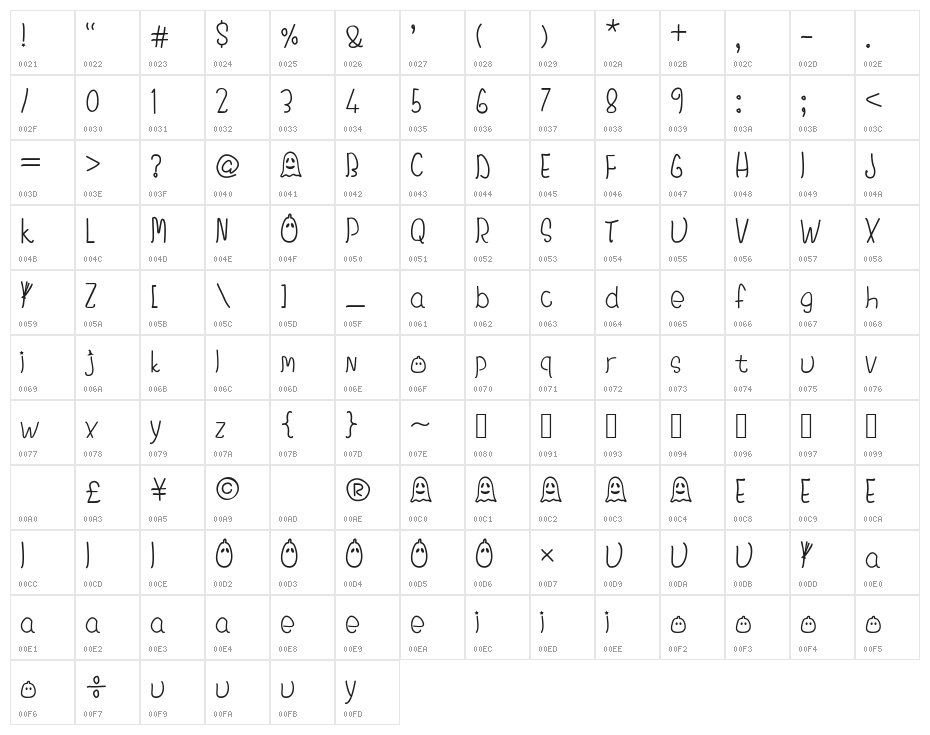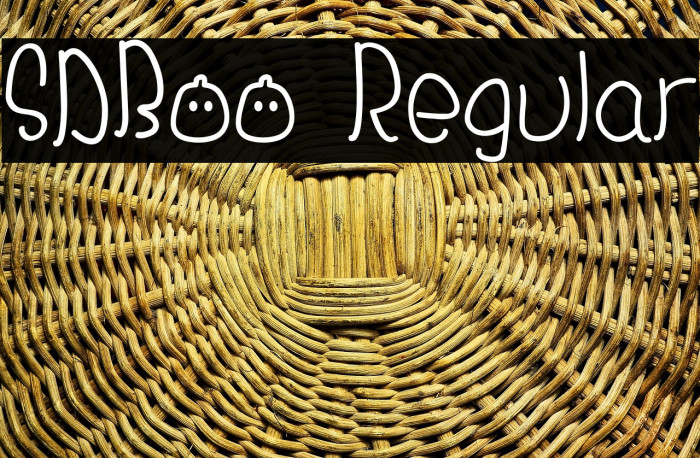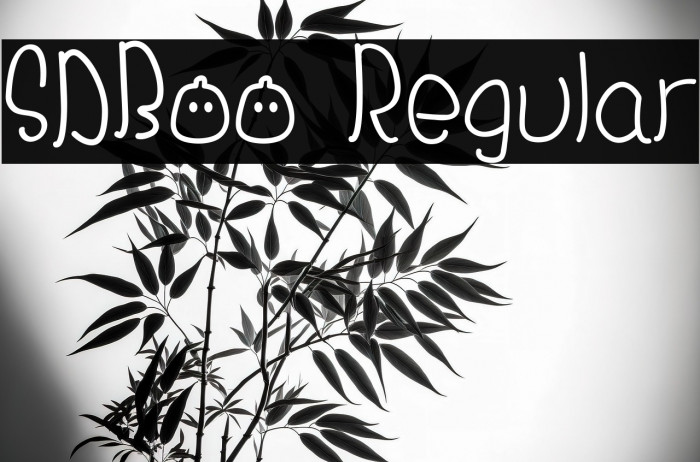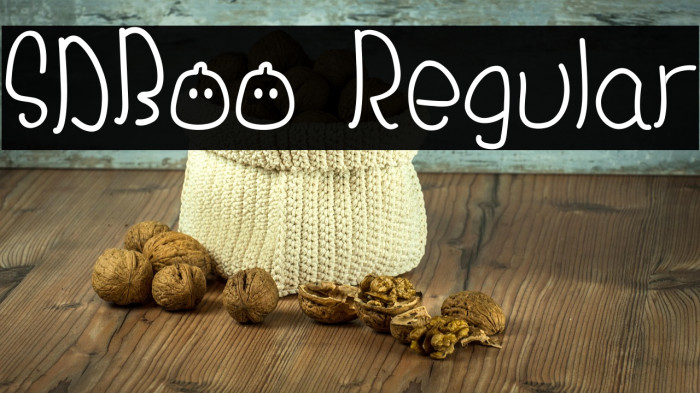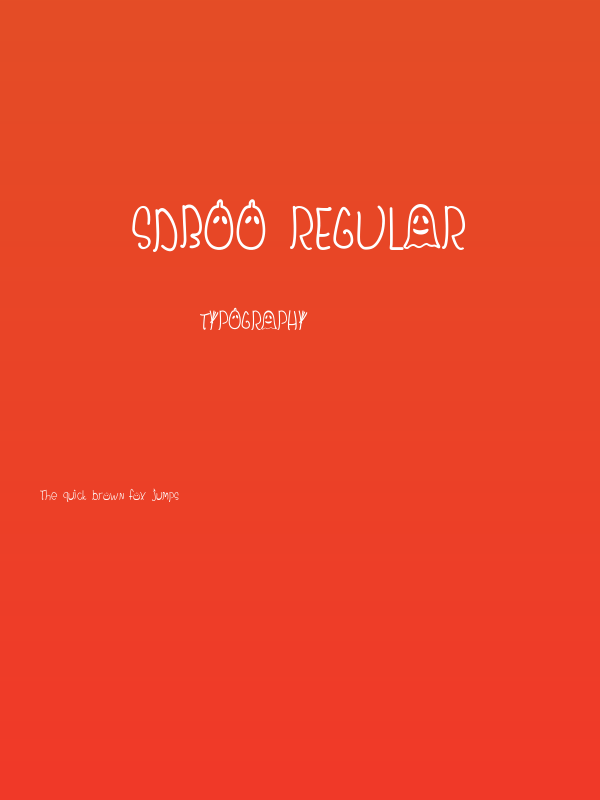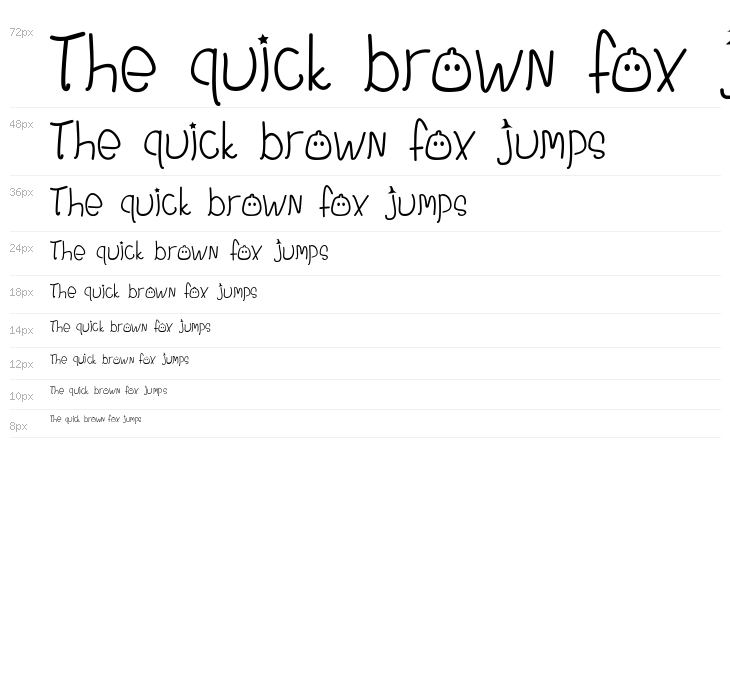
SDBoo Regular Font
A playful, hand-drawn display font with whimsical, irregular letterforms and unique character details such as a ghost-shaped 'A' and star accents. The strokes are monoline and rounded, giving a friendly and informal appearance.
| Overall Style | Decorative, Playful, Whimsical |
| Use Case | Headlines, Posters, Themed Graphics, Logos |
| Proposed Projects | ChildrenΓ’β¬β’s books, Halloween themes, party invitations, playful branding, posters. |